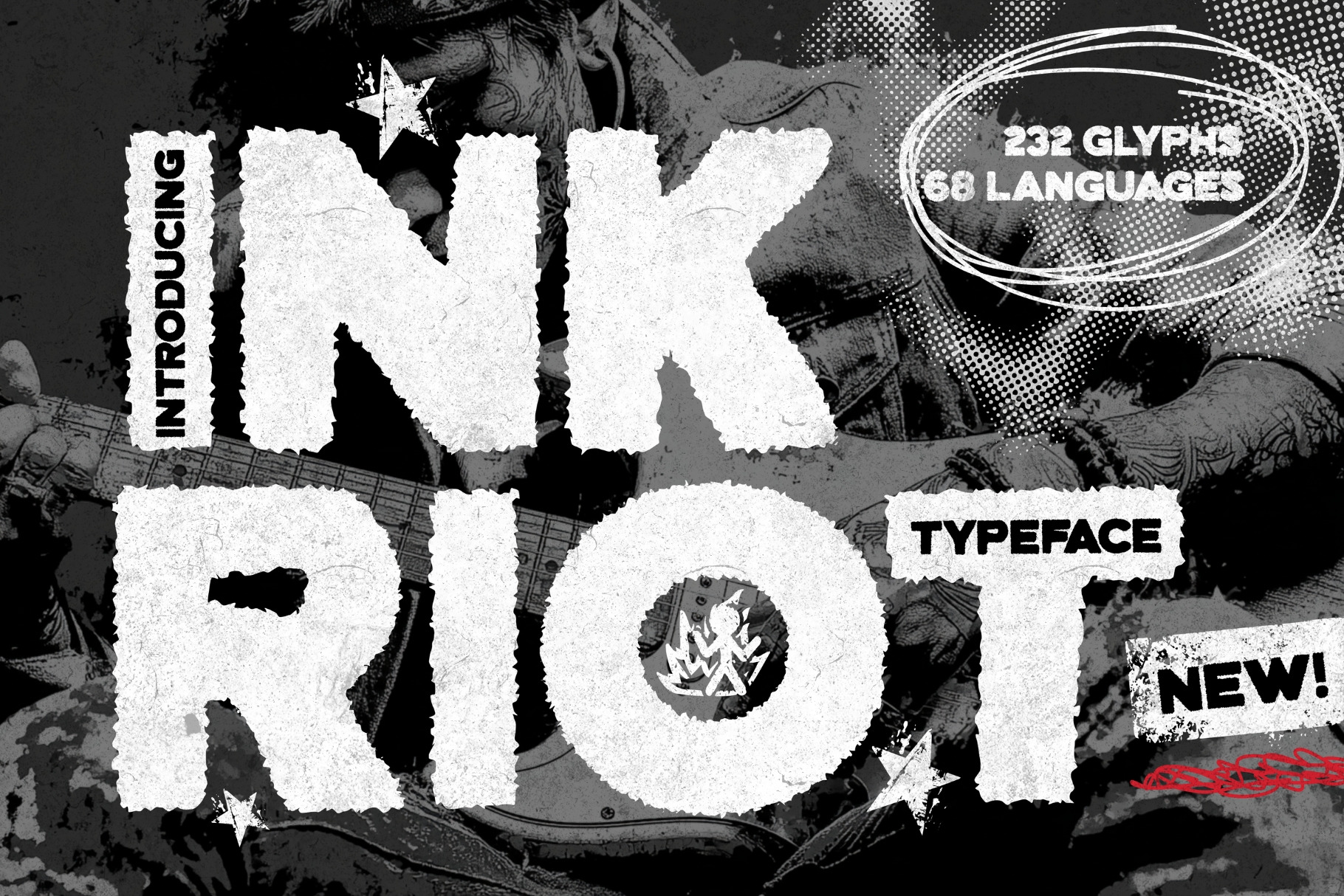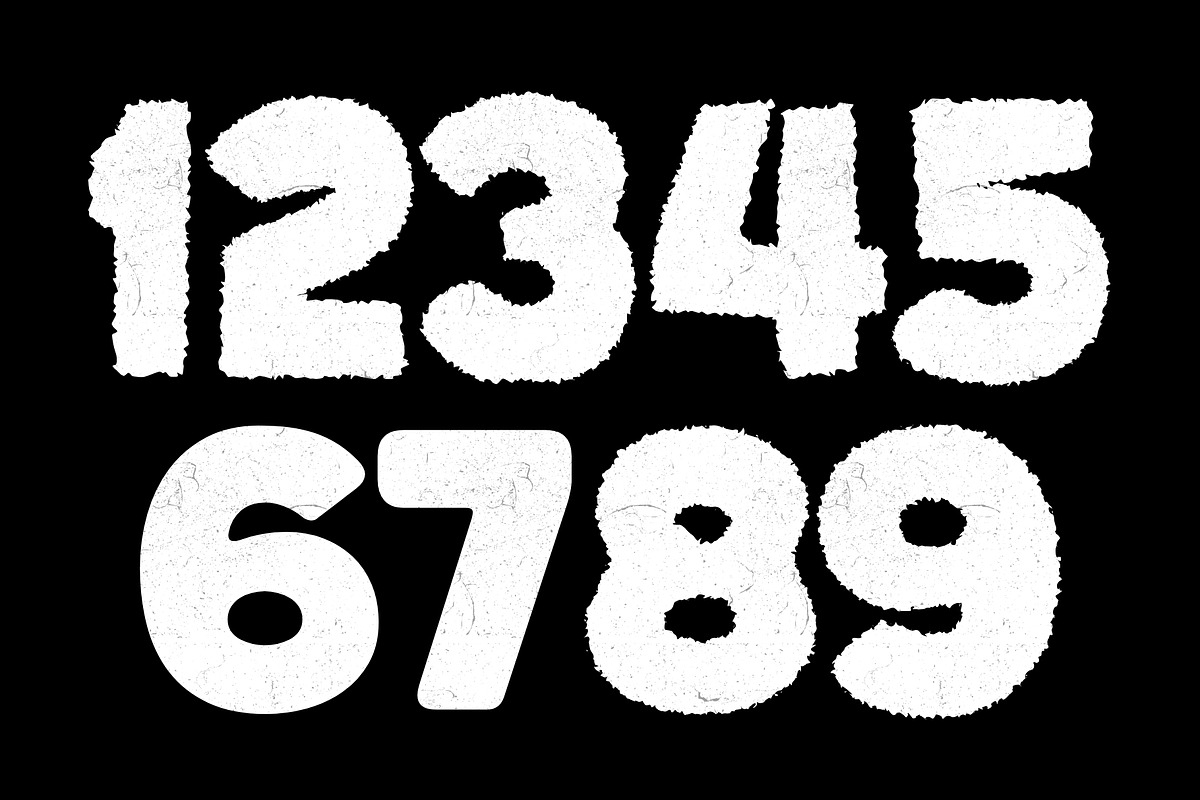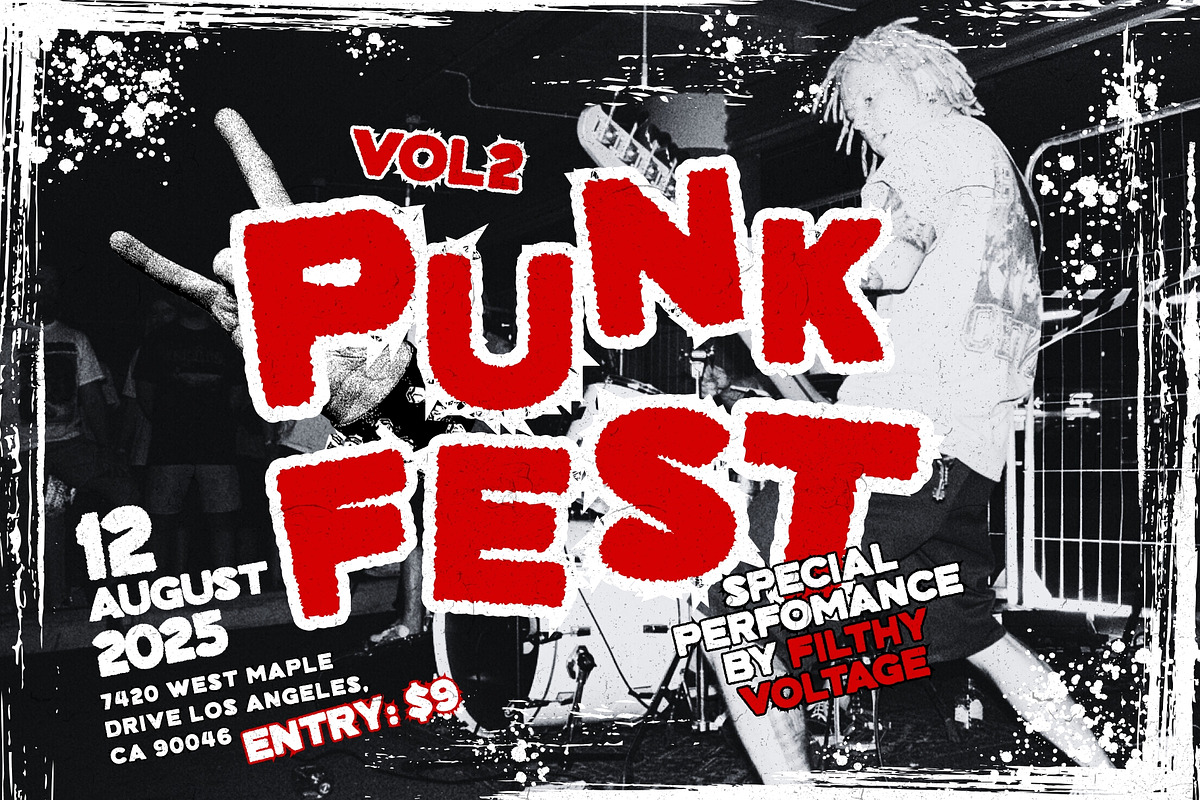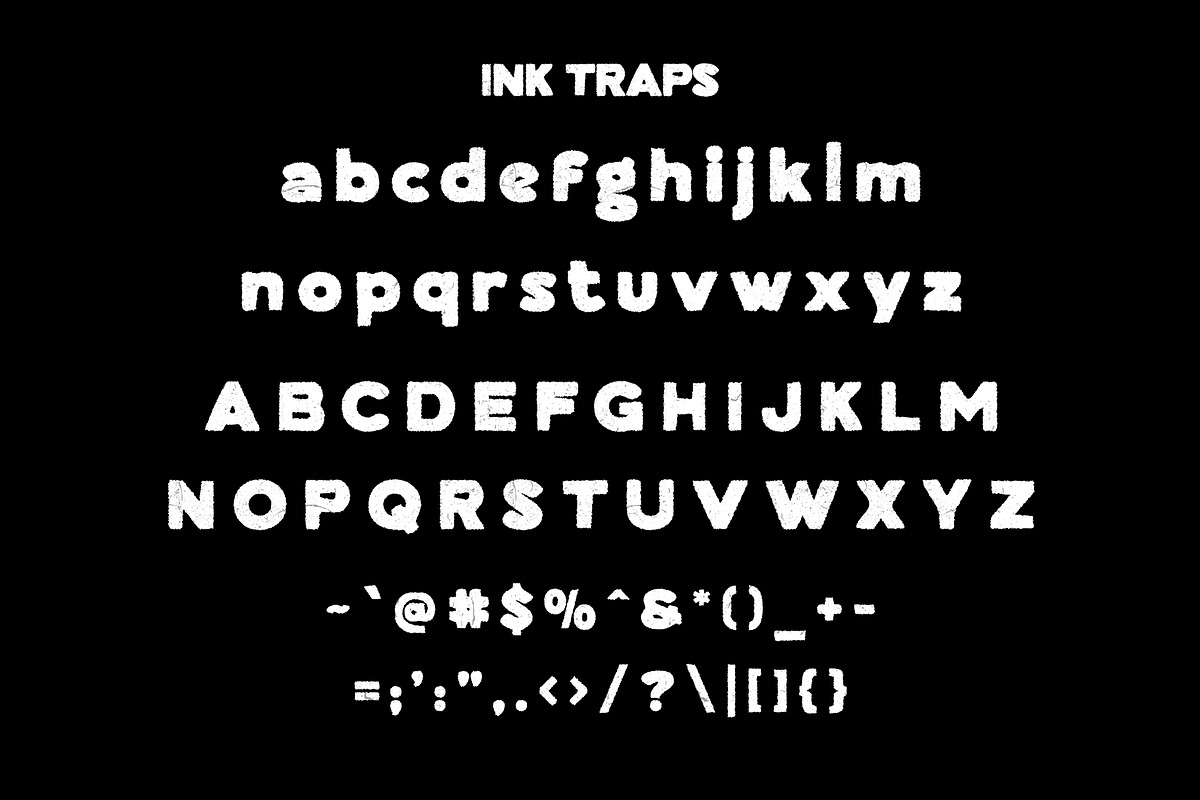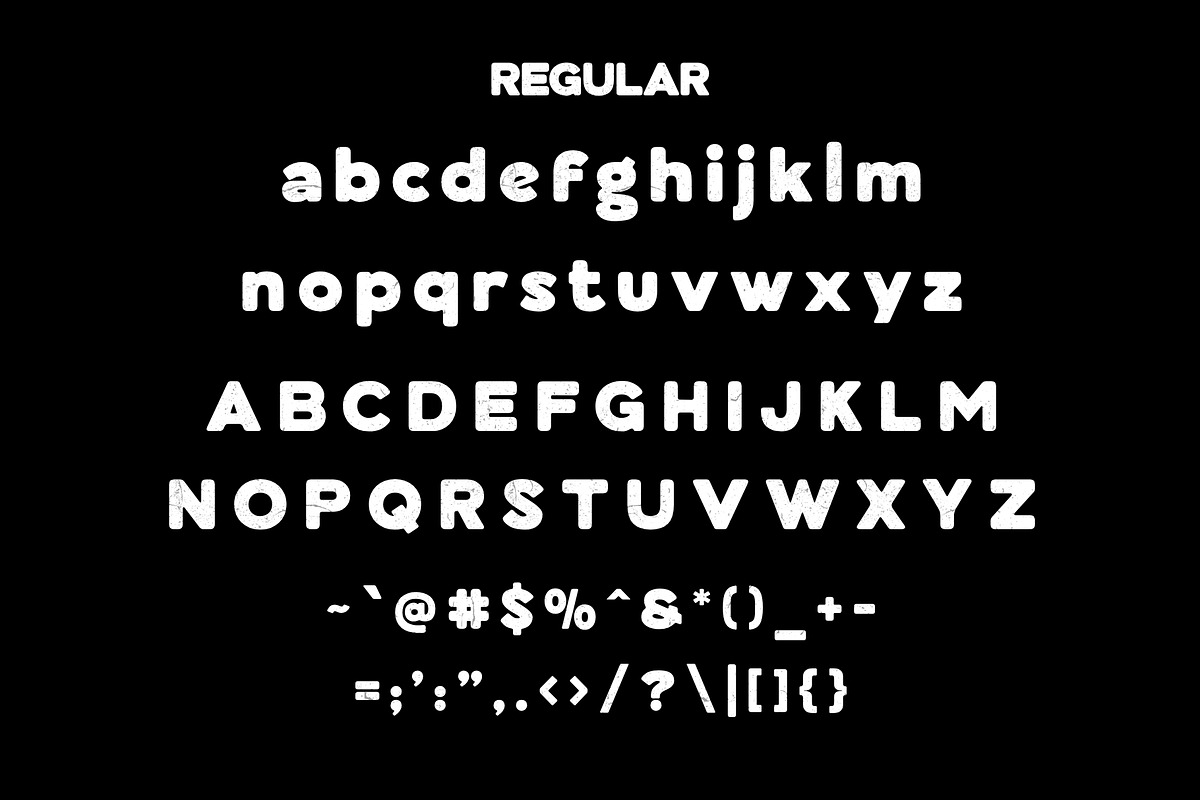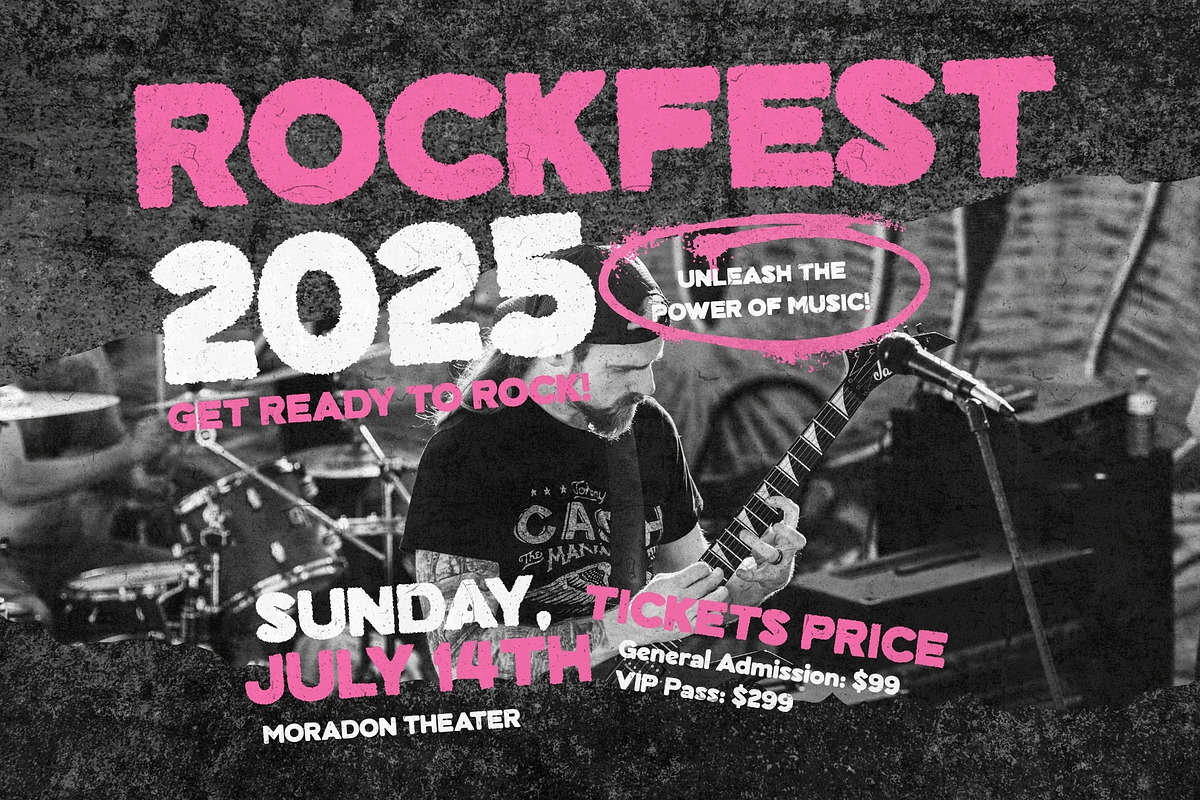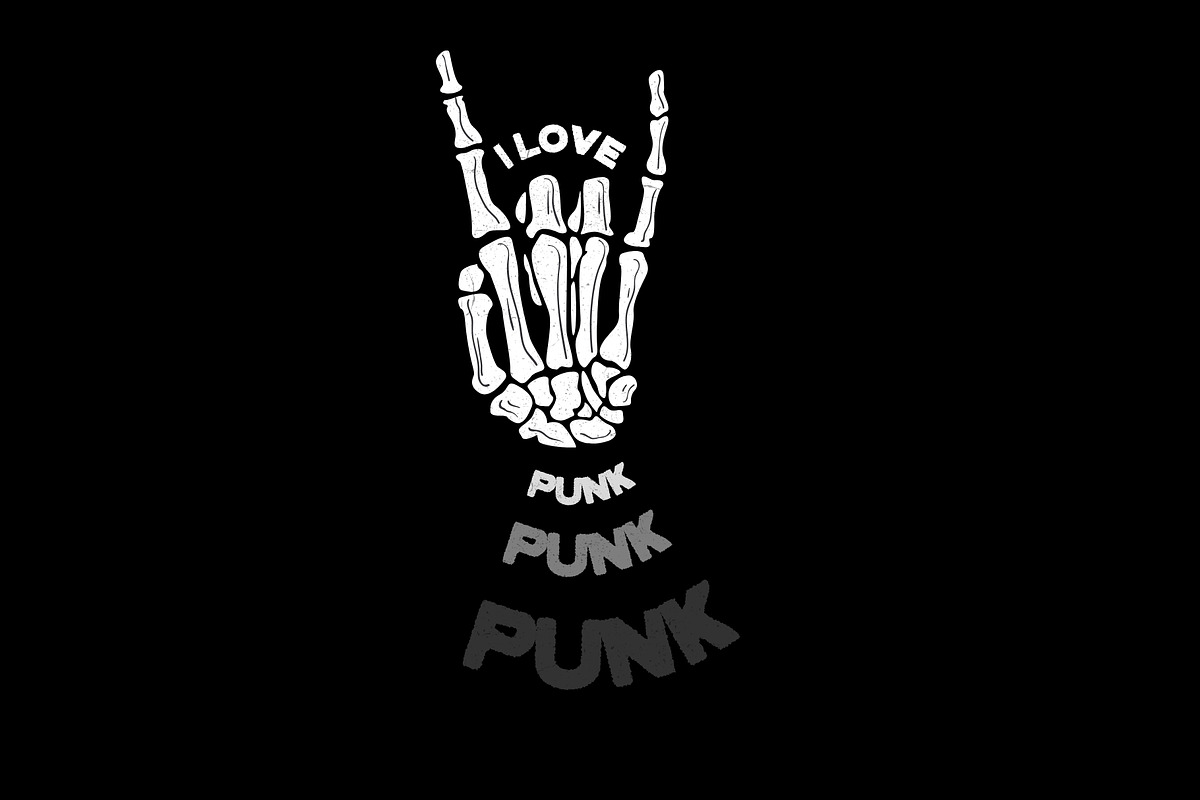
Inkriot Typeface
Meet Inkriot, a rebellious sans typeface forged in the fires of punk attitude and unapologetic design. With both Regular and Ink Trap versions, Inkriot is built to break boundaries and scream personality, whether you’re crafting bold logos, fierce branding, gritty posters, or punchy social media visuals.
This isn’t your typical clean-cut sans. Inkriot comes in two flavors: a smooth Regular version for a bold, solid presence, and a gritty Ink Trap version packed with raw attitude. The Ink Trap style features rough, exaggerated edges that add texture, tension, and a rebellious edge, perfect for designs that need to stand out and strike hard.
Where Ink Meets Grit:
Inkriot doesn’t just look cool, it explodes off the page when paired with textures. Layer it with halftones, grunge overlays, or scratchy backgrounds, and watch your design come alive. It’s the kind of font that thrives in the chaos, distorted, distressed, and totally unforgettable.
- Logos that demand attention
- Posters that need to shout, not whisper
- Branding that rejects the status quo
- Flyers, zines, and gig graphics with serious street cred
- Social media posts that punch through the noise
So if your design style is more "riot in the streets" than "orderly queue", Inkriot is your new weapon of choice. Embrace the chaos. Start the rebellion.,